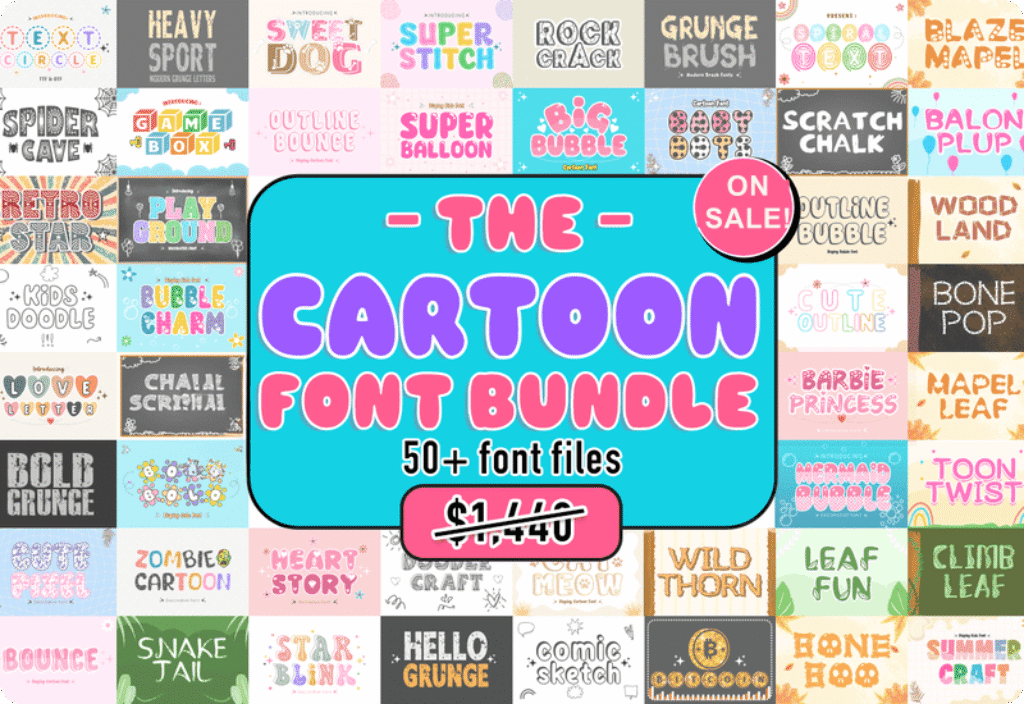
Bring Fun and Whimsy to Every Design Project with This Cartoon Font Bundle
Inject joy, character, and a big smile into your creative projects with the Cartoon Font Bundle—featuring 54 professionally crafted fonts valued at $1,440, now available completely free. This exclusive collection includes a wide variety of playful, quirky, and expressive font styles designed by TaralArt, making it ideal for kid-centric designs, fun craft projects, branding, party invitations, games, storybooks, and more.
A Rich Variety of Fonts for Any Fun-Filled Theme
With 54 fonts in one pack, the Cartoon Font Bundle offers a comprehensive range of styles suitable for:
- Comic books and graphic novels
- Kids’ birthday party invites
- Classroom worksheets and activity books
- Merchandise like T-shirts, mugs, and stickers
- DIY printables for Etsy shops or craft fairs
- School newsletters and posters
- Websites, apps, or educational content
Each font delivers its own personality—some bold and bubbly, some sketchy and silly, others spooky or pixelated. The bundle includes decorative fonts like Super Balloon, Zombie Cartoon, Starblink, and Meoow, ensuring there’s a font for every mood or occasion.
Why This Bundle is a Must-Have for Creative Designers
- Professional Quality – Created by TaralArt, known for expressive and unique font design.
- Creative Flexibility – Suitable for lighthearted, spooky, romantic, or energetic themes.
- Diverse Font Styles – Includes bubble letters, chalk scribbles, brush strokes, pixel fonts, outline fonts, horror-themed fonts, and more.
Font Highlights: Get Inspired by These Top Picks
- Comic Sketch – Perfect for storytelling and speech bubbles.
- Bubble Charm – A bubbly, soft font great for baby showers or children’s product labels.
- Grunge Brush – Add texture and flair to posters or rock-themed art.
- Sweet Love – Great for Valentine’s Day cards and wedding invitations with a playful twist.
- Bitcoin BTC – A quirky tech-inspired font ideal for fun financial or cryptocurrency themes.
Whether you’re designing for Halloween (Jolly Horror), nature-themed events (Leaf Fun), or kid-friendly branding (Cute Pixel), this bundle offers everything you need.
Included Font List (Selection from 54)
- Super Stitch Decorative Font By TaralArt
- Game Box Decorative Font By TaralArt
- Outline Bubble Display Font By TaralArt
- Heart Story Decorative Font By TaralArt
- Super Balloon Decorative Font By TaralArt
- Comic Sketch Display Font By TaralArt
- Bold Grunge Display Font By TaralArt
- Big Bubble Polices d’Affichage Police Par TaralArt
- Doodle Craft Dekorative Schriftarten Schriftart Von TaralArt
- Kids Doodle Display Font By TaralArt
- Spider Cave Decorative Font By TaralArt
- Cat Meow Decorative Font By TaralArt
- Mermaid Bubble Decorative Font By TaralArt
- Heavy Sport Display Font By TaralArt
- Bubble Charm Decorative Font By TaralArt
- Chalk Scribble Fuentes Display Fuente Por TaralArt
- Scratch Chalk Display Font By TaralArt
- Sweet Love Display Font By TaralArt
- Coffee Lover Display Font By TaralArt
- Hello Grunge Sans Serif Font By TaralArt
- Starblink Decorative Font By TaralArt
- Summer Craft Decorative Font By TaralArt
- Grunge Brush Czcionki do Wyświetlania Czcionka Przez TaralArt
- Barbie Princess Decorative Font By TaralArt
- Spiral Text Decoratieve Fonts Font Door TaralArt
- Outline Bounce Display Font By TaralArt
- Text Circle Decorative Font By TaralArt
- Baby Dots Decorative Font By TaralArt
- Cute Outline Display Font By TaralArt
- Bone Pop Decorative Font By TaralArt
- Retro Star Decorative Font By TaralArt